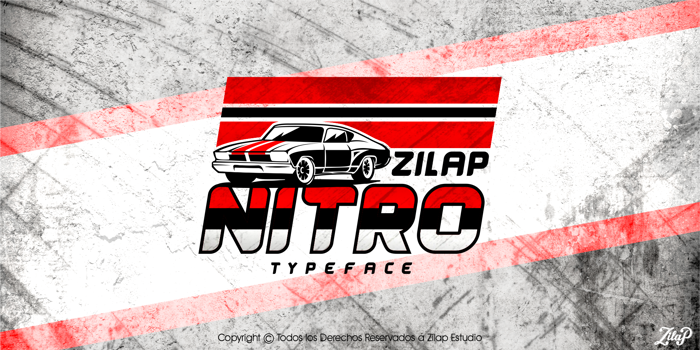
Zilap Nitro Font
bold Italic Style
ZILAP NITRO: This font was created for the entire automotive and speed field.
Made for posters of sporting events and logos relating to the motor industry, give proof to this great source.